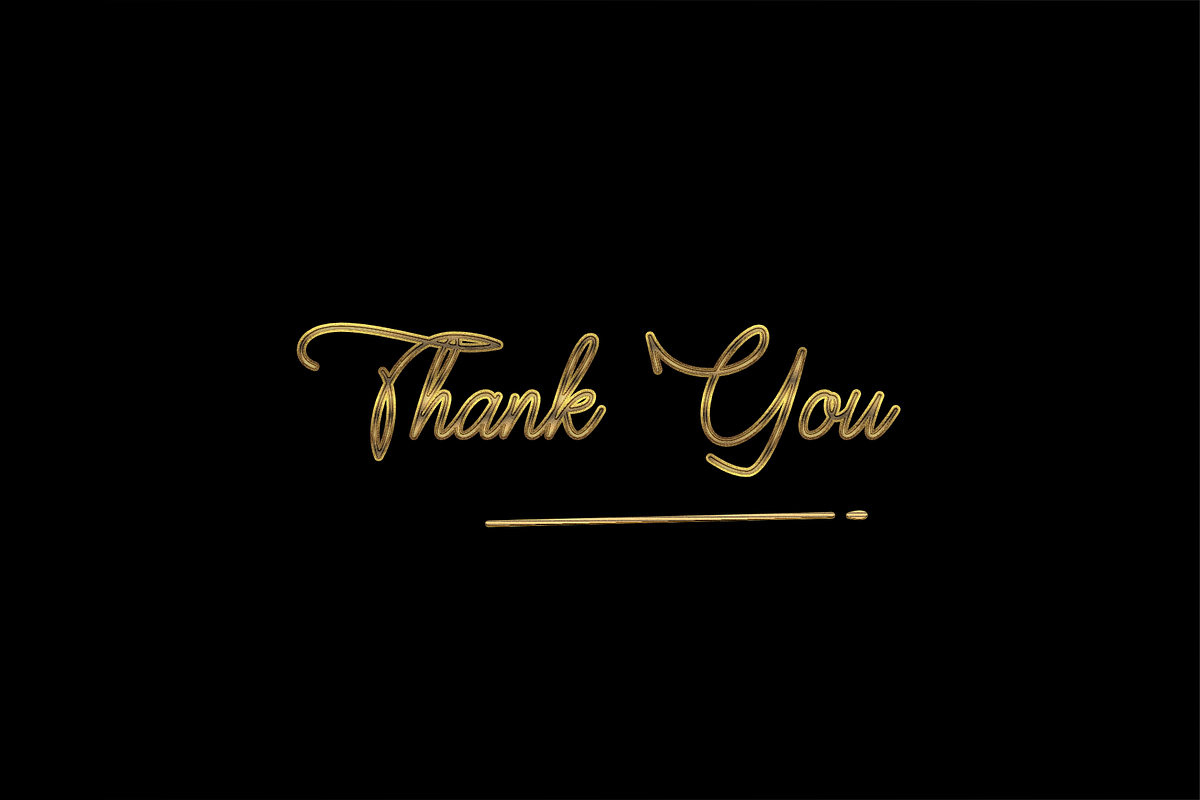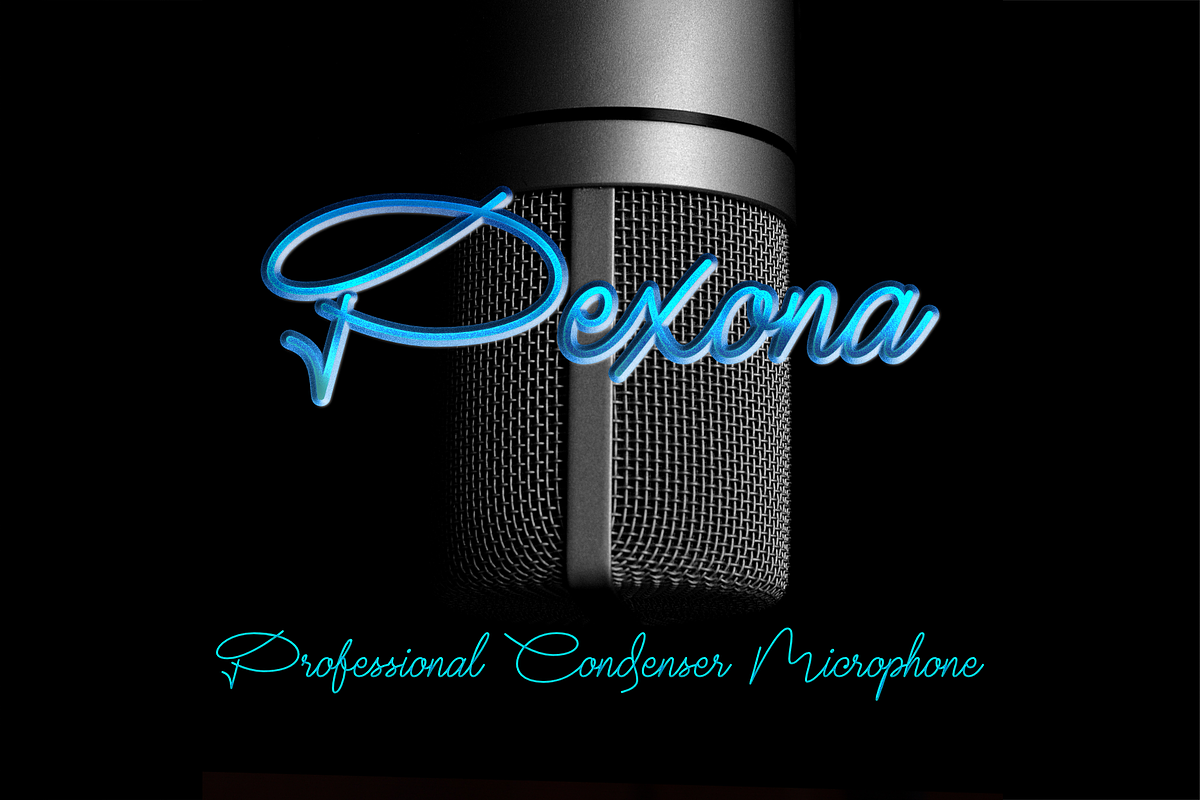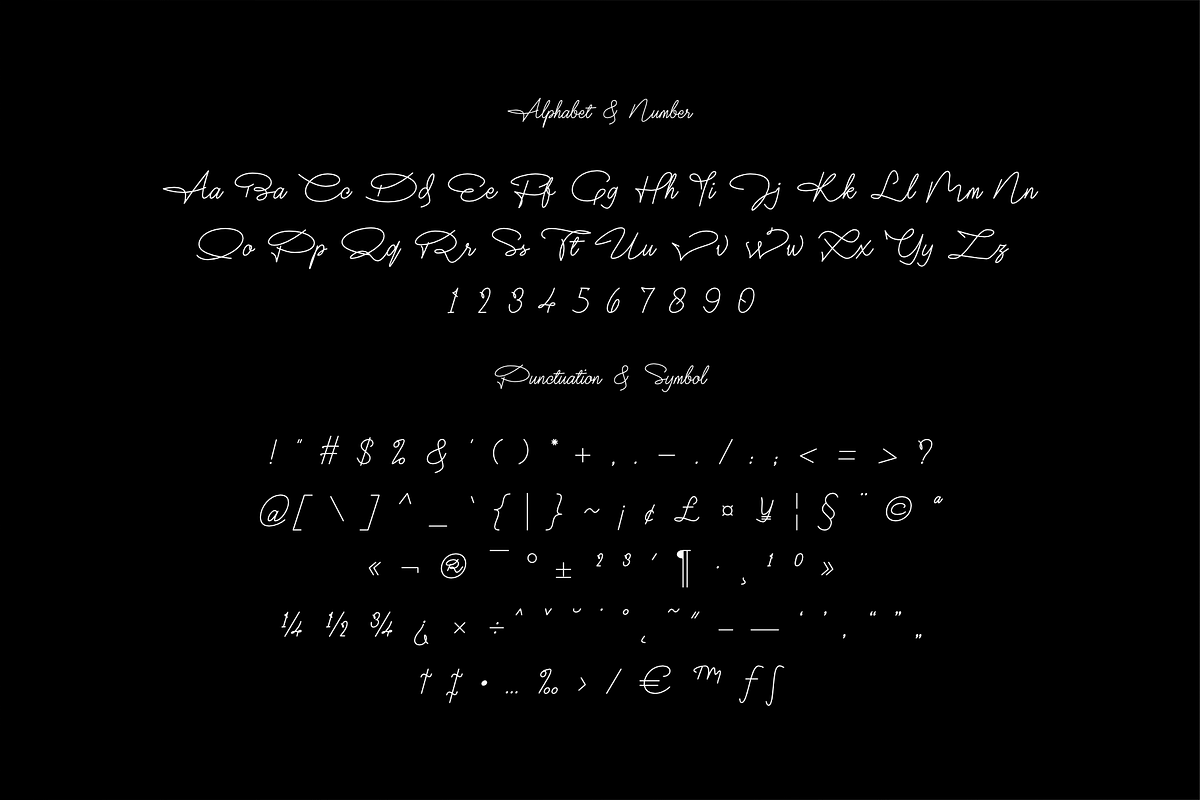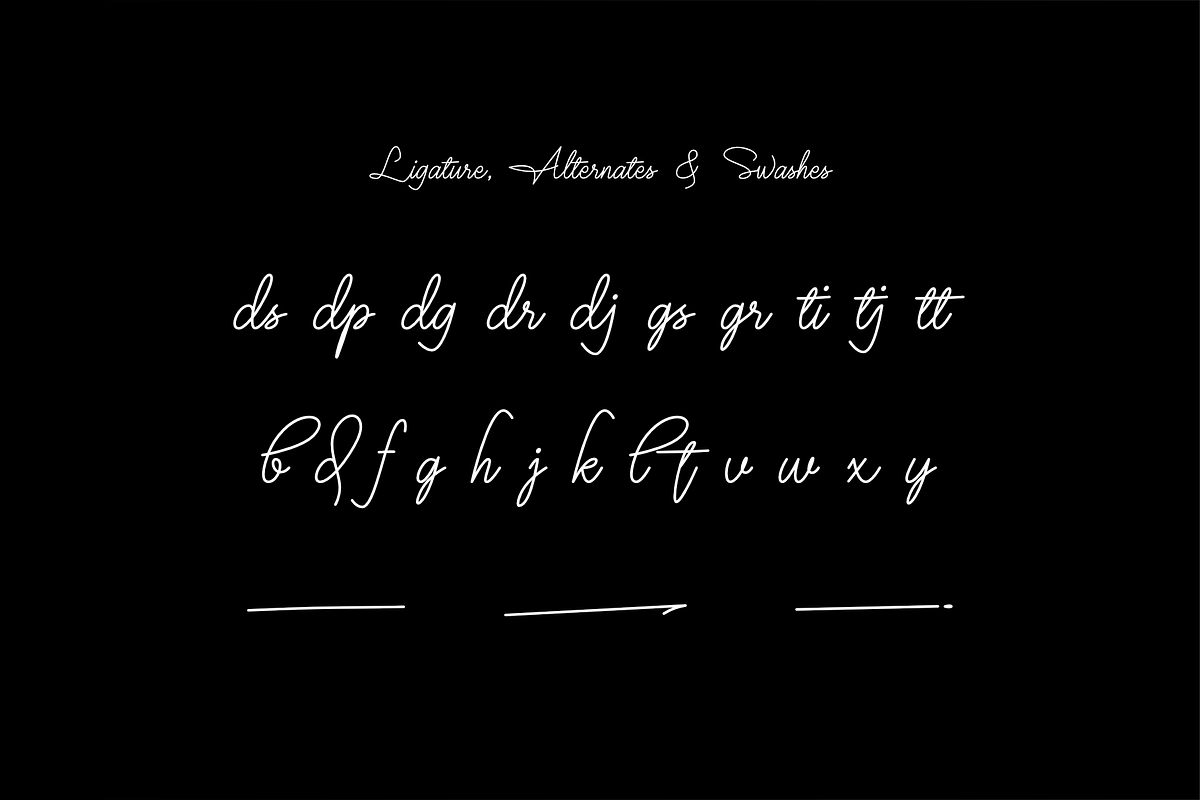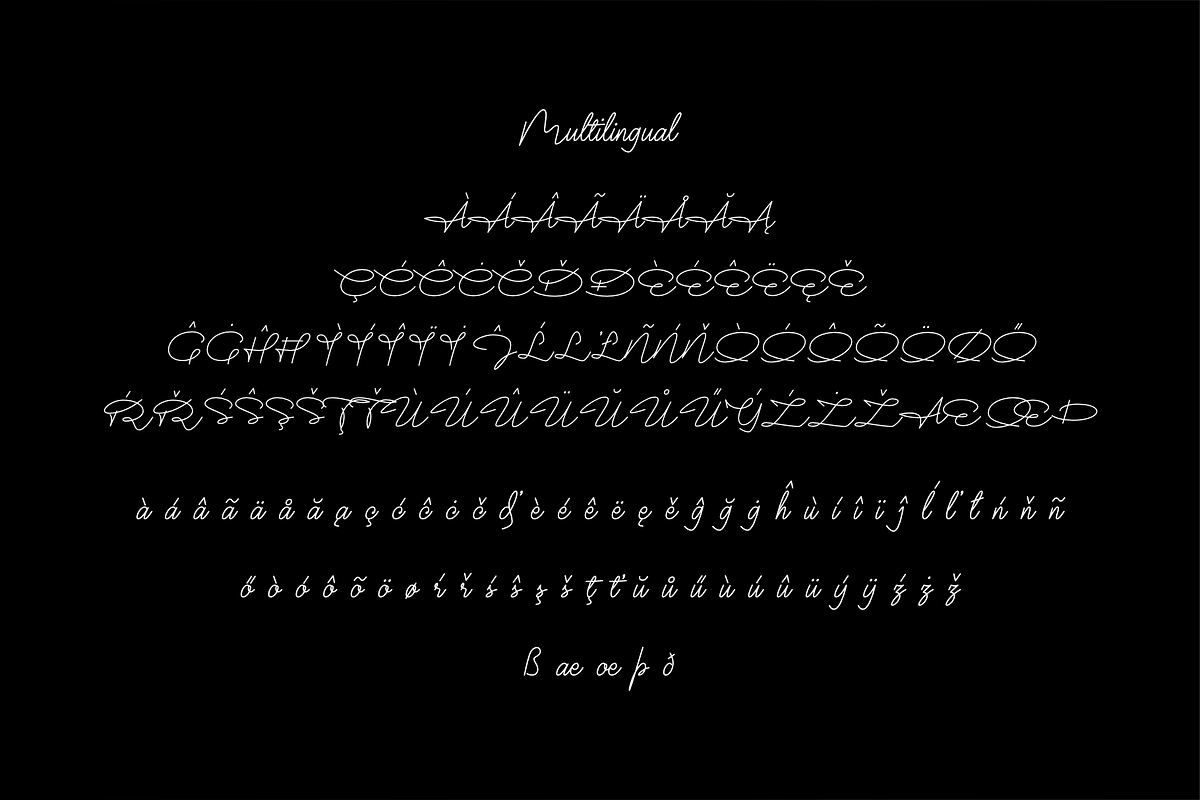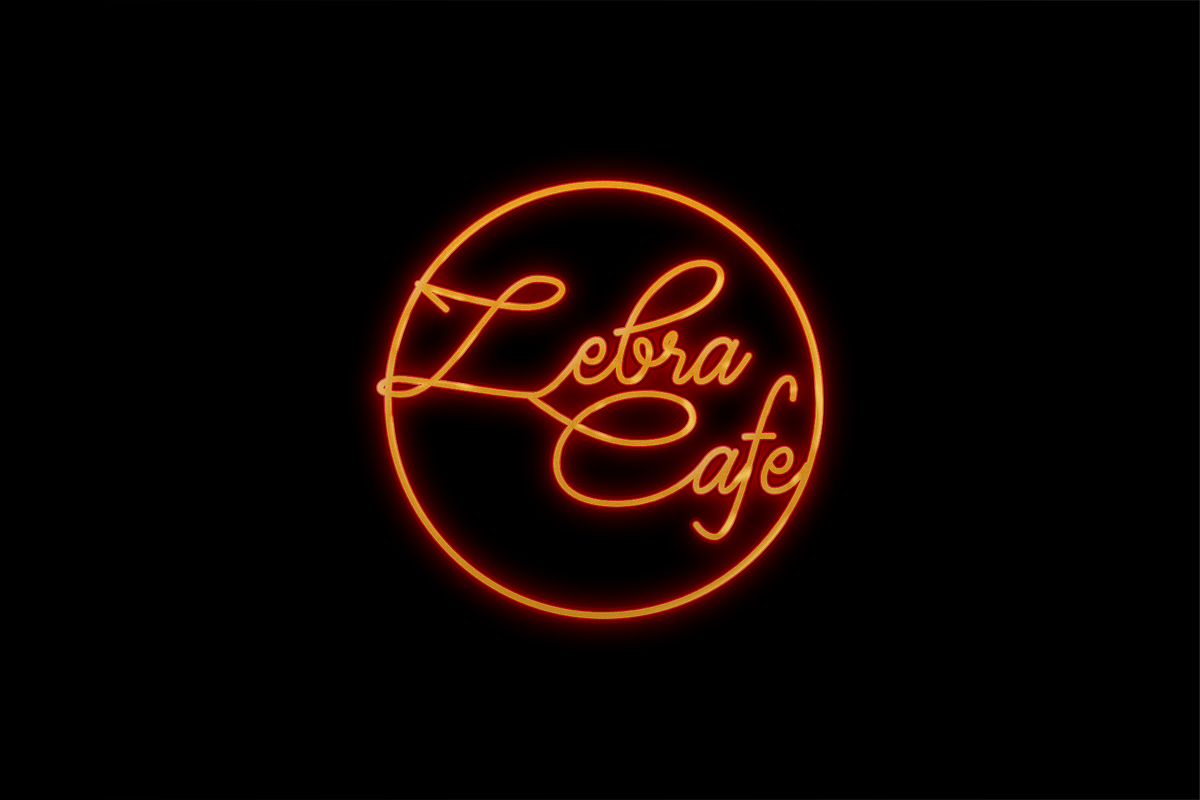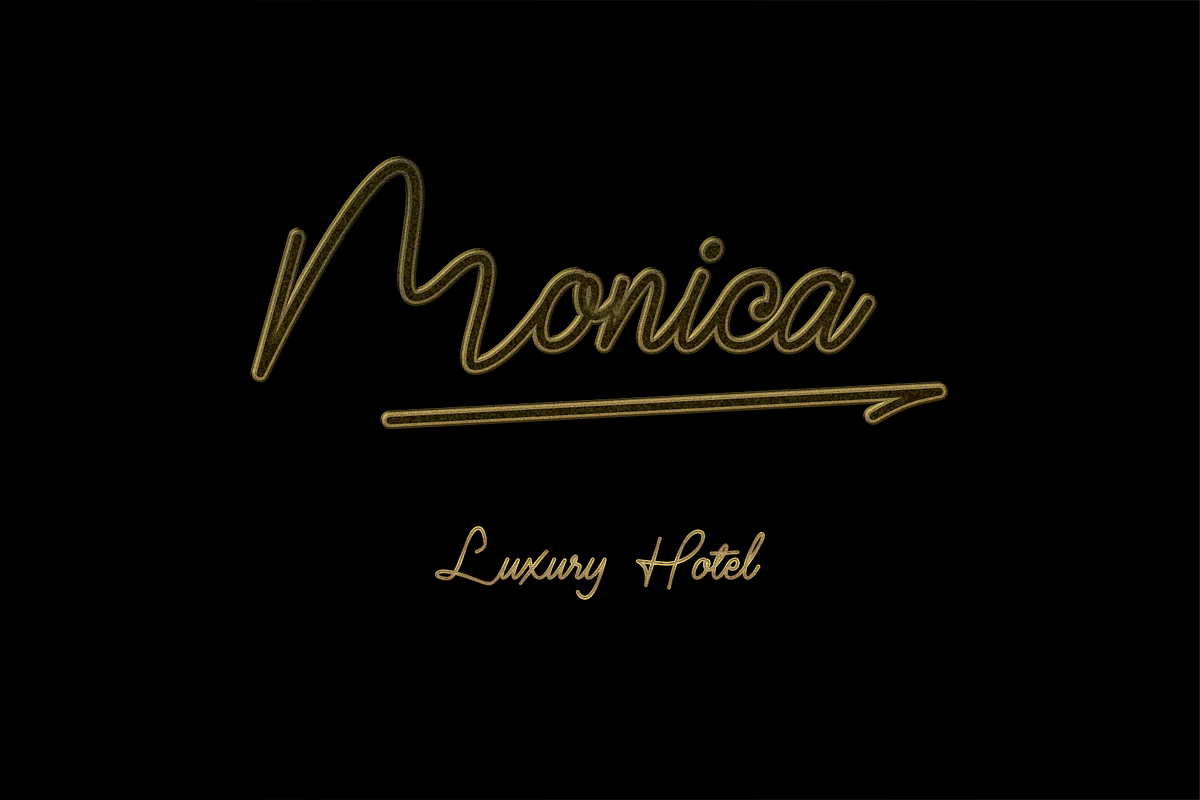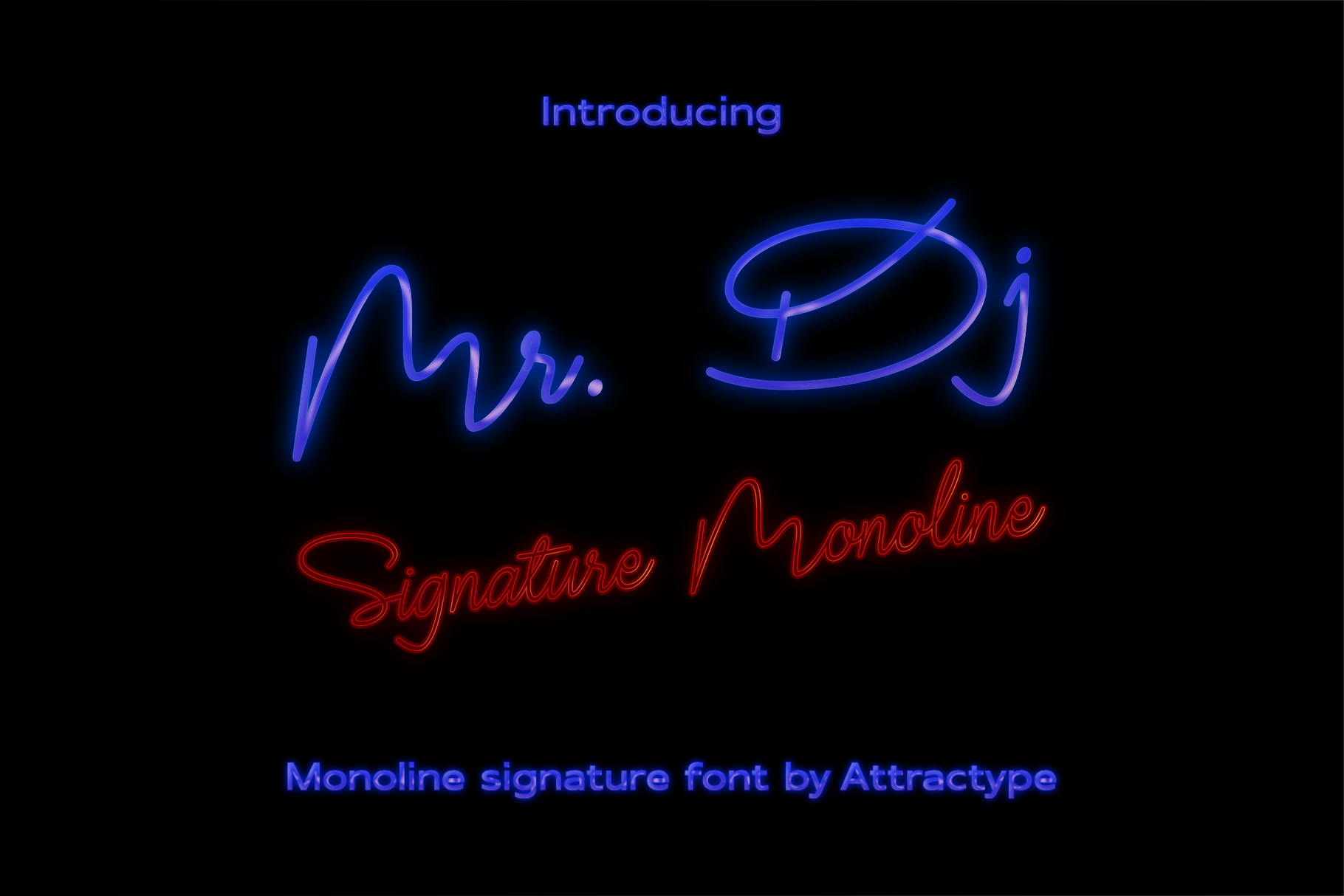
Mr Dj Signature Monoline Font
Mr. Dj Signature Monoline is a script typeface specially designed for signature fonts. With a balanced thickness, it is also suitable for various lettering purposes, such as greeting cards, invitations, branding, crafts, wedding decorations, even looks good for text.
Mr. Dj Signature comes in two variants, regular appearing like calligraphy and monoline with the same line thickness. both are equipped with several ligatures, alternates and 3 signature swashes placed in the underline character (_) .